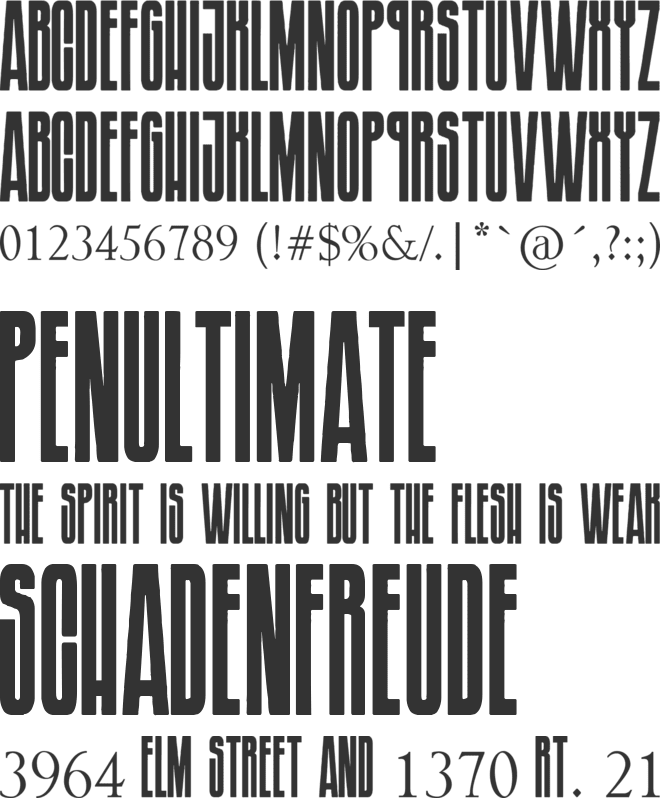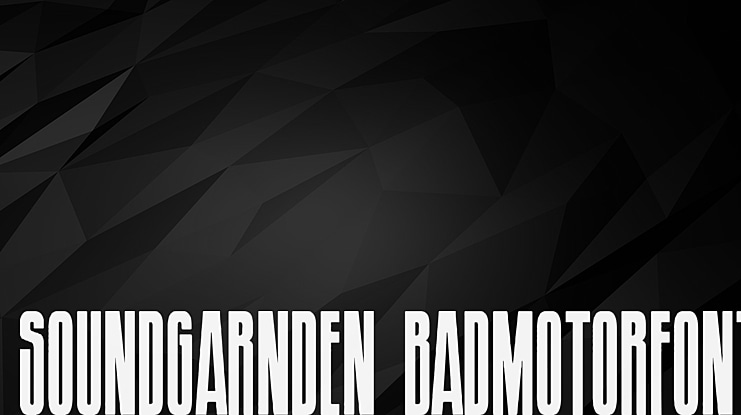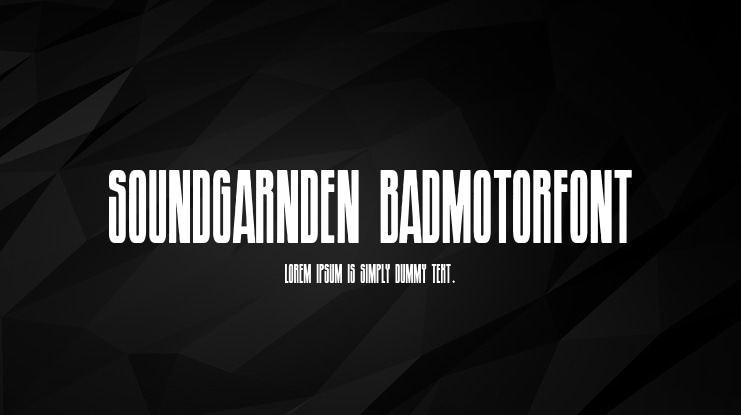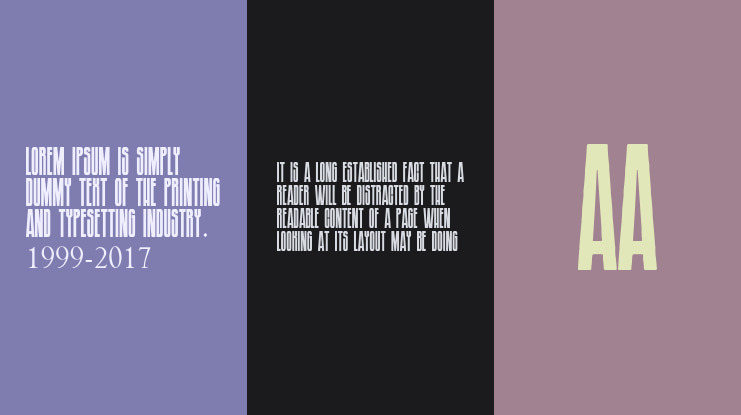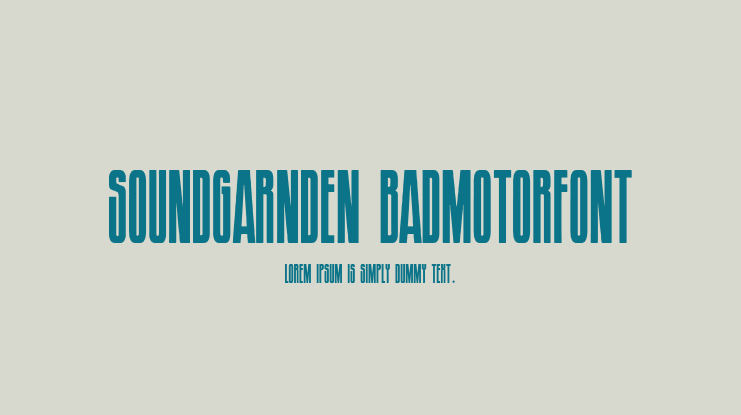
Soundgarnden Badmotorfont Font
A-Z Original font used by grunge rock band Soundgarden on their album Badmotorfinger. Enjoy it for free! Contact me for personal use Thank you